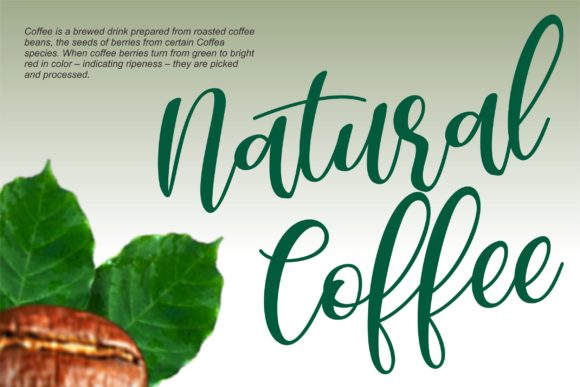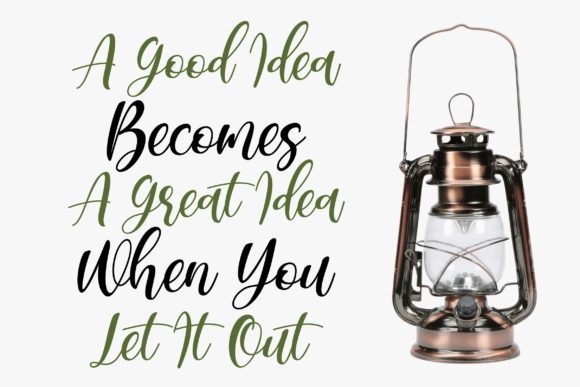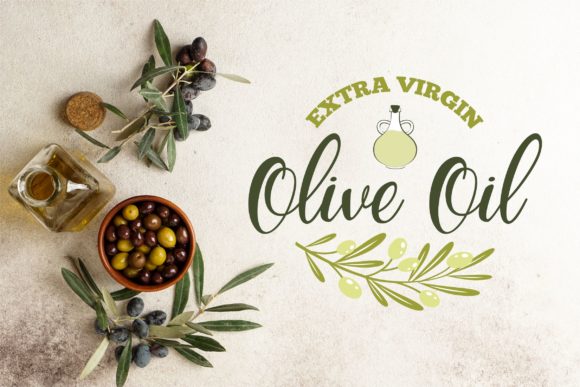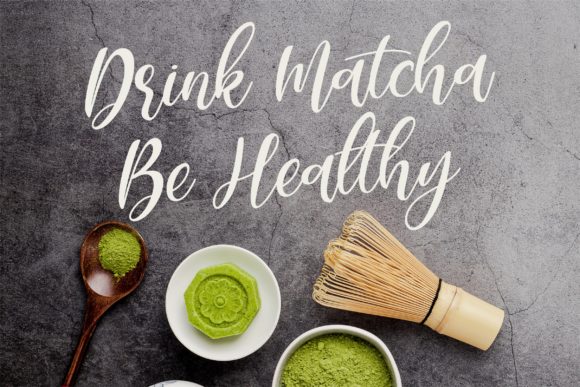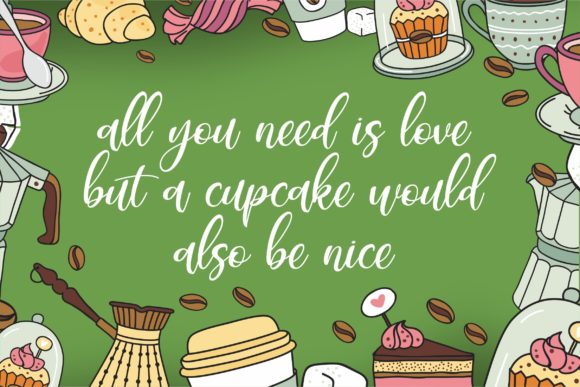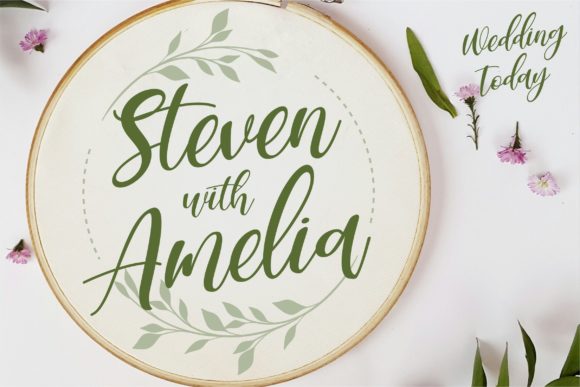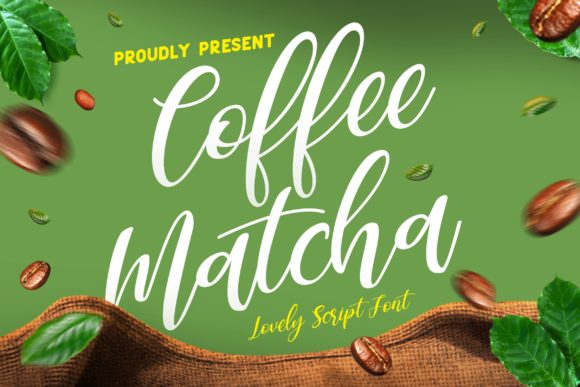
Coffee Matcha Font: A Sweet and Cursive Handwritten Font for Your Design Projects
Are you a designer or crafter looking for a unique and eye-catching font to add a touch of personality to your projects? Look no further than the Coffee Matcha font! This sweet and cursive handwritten font is perfect for a variety of design ideas and is sure to bring a joyful and romantic touch to each of your creations.
What is Coffee Matcha Font?
Coffee Matcha font is a beautiful, handwritten font that is inspired by the sweetness and simplicity of everyday life. Its cursive and flowing lines make it perfect for adding a touch of elegance and sophistication to any design project. The font is highly legible and versatile, making it suitable for a wide range of applications, from branding and packaging to wedding invitations and social media graphics.
Key Features of Coffee Matcha Font
- Sweet and Cursive Handwritten Style: Coffee Matcha font features a beautiful, cursive handwritten style that is both sweet and elegant.
- Highly Legible: The font is highly legible, making it perfect for use in a variety of design projects, from large headings to smaller body text.
- Versatile: Coffee Matcha font is highly versatile and can be used in a wide range of applications, from digital designs to print materials.
Design Ideas Using Coffee Matcha Font
Coffee Matcha font is a versatile font that can be used in a variety of design projects. Here are a few ideas to get you started:
- Wedding Invitations: Add a touch of romance and elegance to your wedding invitations with Coffee Matcha font.
- Branding and Packaging: Use Coffee Matcha font to create beautiful and eye-catching branding and packaging materials for your business.
- Social Media Graphics: Add a touch of personality to your social media graphics with Coffee Matcha font.
- Blog and Website Design: Use Coffee Matcha font to add a touch of elegance and sophistication to your blog or website.
Why Choose Coffee Matcha Font?
There are many fonts available for designers and crafters, but Coffee Matcha font stands out for several reasons:
- Unique and Eye-Catching: Coffee Matcha font is a unique and eye-catching font that will add a touch of personality to your design projects.
- High-Quality: The font is of high-quality and is designed to look beautiful in a variety of sizes and applications.
Tips and Tricks for Using Coffee Matcha Font
- Experiment with Different Sizes: Coffee Matcha font looks beautiful in a variety of sizes, so don’t be afraid to experiment and find the perfect size for your design project.
- Pair with Other Fonts: Coffee Matcha font pairs well with a variety of other fonts, so try pairing it with a bold font for headings or a clean font for body text.
- Use in Combination with Images: Coffee Matcha font looks beautiful in combination with images, so try using it to add text to your photos or illustrations.
By following these tips and tricks, you can get the most out of Coffee Matcha font and create beautiful and eye-catching designs that will leave a lasting impression.